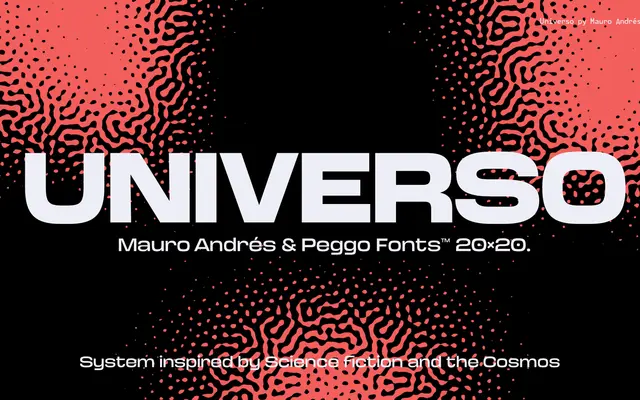
Universo
Peggo Fonts · Mauro Andrés · 2020
A retro-futurist display family in six styles, designed for a Chilean social-commentary fanzine and shaped by Aldo Novarese's mid-century Italian type.
Designed by Mauro Andrés under the creative direction of Victoria Rivas, Universo draws on retro-futurist poster aesthetics and the kind of scientific publications that Aldo Novarese worked alongside in the 1950s. The family runs across five upright weights from Thin to Black, with a Stencil variant rounding out the six styles. Conceived for headlines, concert posters, magazine covers and branding, it includes a wide set of OpenType features including stylistic alternates, ligatures and oldstyle figures.
Explicitly described as a display font family, inspired by retro-futurist poster design and old scientific publications, with strong influence from Aldo Novarese's mid-century work. The stencil variant and headline-focused intent confirm its display classification.